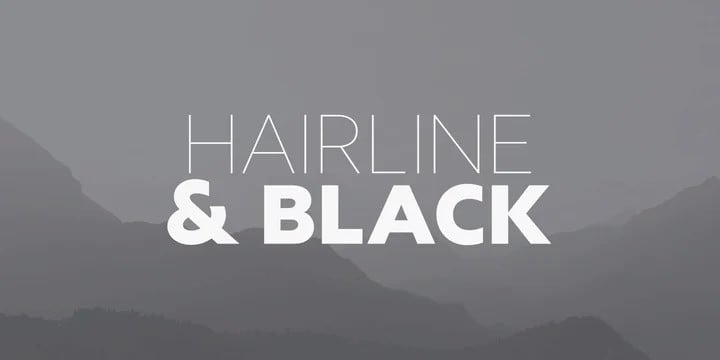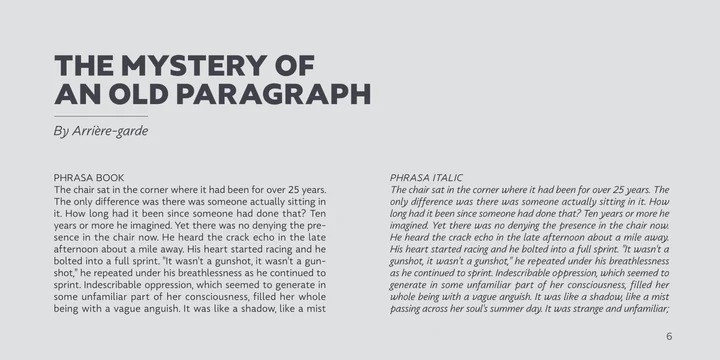
Phrasa Sans Serif Font
Phrasa Sans Serif Font is a geometric sans-serif typeface family which will carry you through most of your design needs. The font comes with full upper & lower case characters, numbers, symbols and includes the most common stylistic ligatures. Designed for legibility, she truly shines in running text. However her solid yet elegant construction allows for usage in such settings as branding or signage. It is perfect for headings, logos, posters, packaging and so much more!